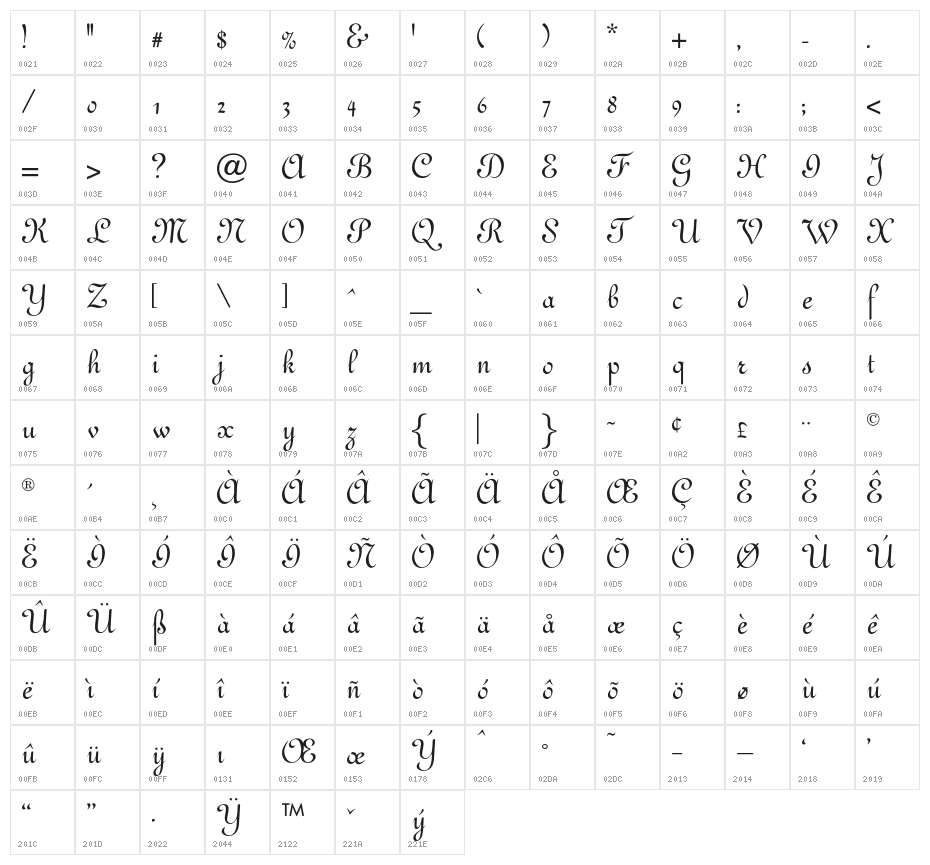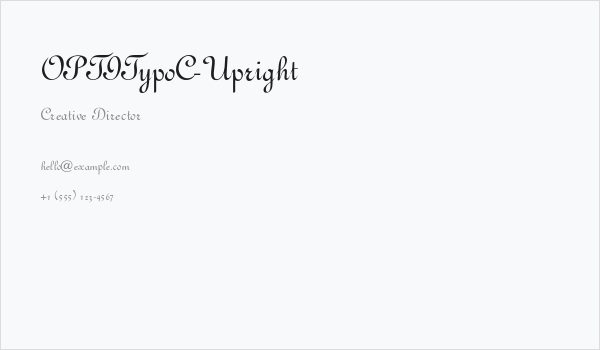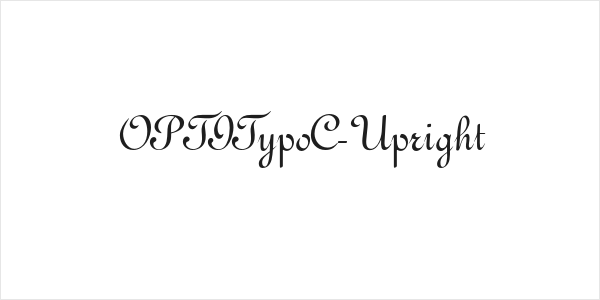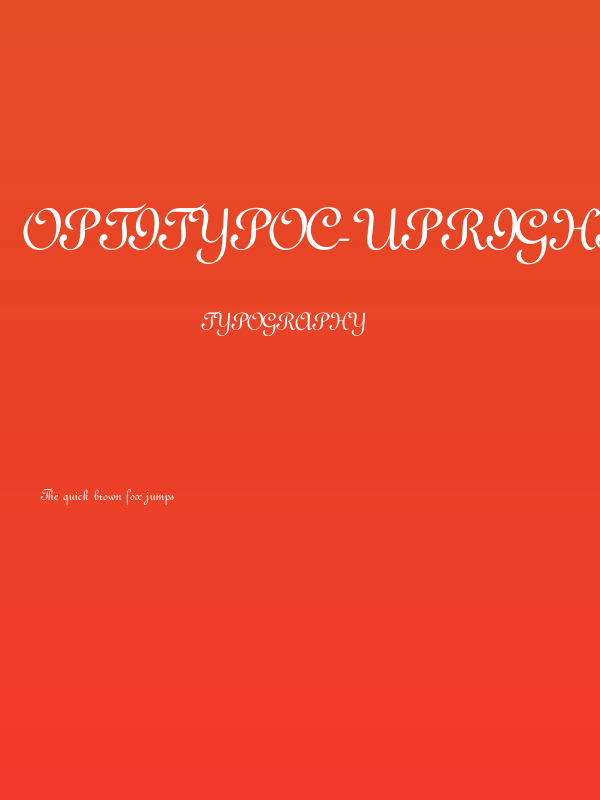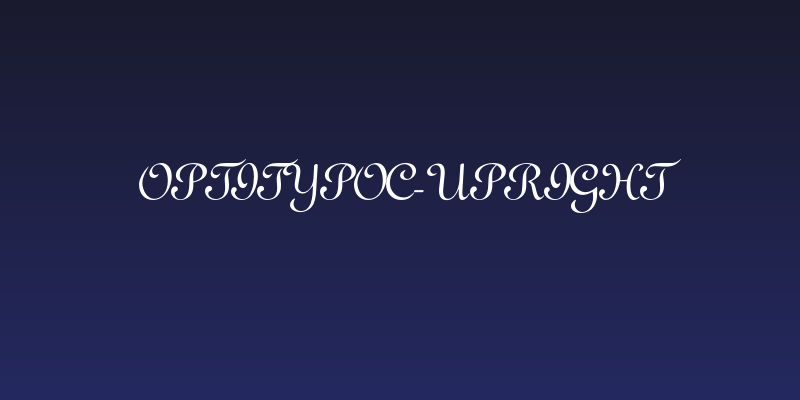
OPTITypoC-Upright Font
OPTITypoC-Upright Description
This font features an elegant and flowing script style, characterized by its smooth curves and graceful strokes. The uppercase letters exhibit a sophisticated flair with intricate loops and swashes, while the lowercase letters maintain a consistent fluidity that complements the overall design. Numbers and special characters are crafted with the same attention to detail, ensuring a cohesive appearance across all elements. The font's design is reminiscent of classic calligraphy, making it suitable for projects that require a touch of elegance and refinement.
Overall StyleClassic
Use CaseLogos, Invitations, Decorative text
Proposed ProjectsIdeal for wedding invitations, luxury branding, elegant packaging, and formal event materials.